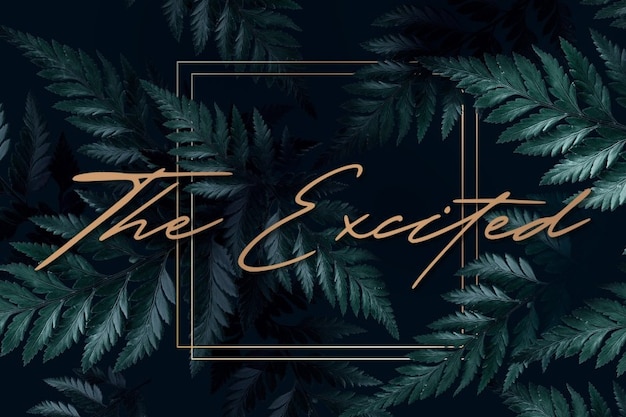
The Excited
The Excited Font
The Excited is a lively, handwritten font that combines the elegance of royalty with ancient influences. Its flowing strokes and regal flair make each letter feel sophisticated yet full of energy. Perfect for creating designs with a royal touch, this font adds excitement and charm to invitations, logos, and branding, blending the grace of a queen with a touch of historical grandeur.